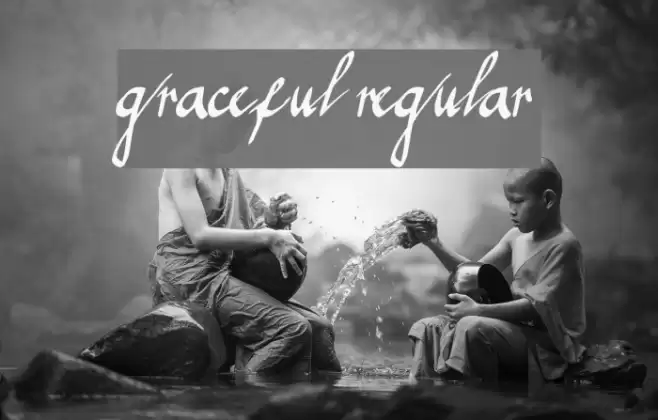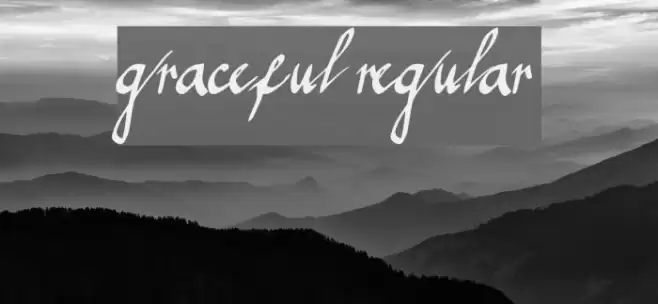
graceful regular Font
graceful regular Description
This font exudes elegance and sophistication with its flowing, cursive style. Each letter is intricately designed with delicate curves and flourishes, giving it a hand-drawn appearance. The uppercase letters are particularly ornate, featuring loops and swirls that add a touch of whimsy. The lowercase letters maintain a consistent style, with smooth connections between strokes, enhancing readability. Numbers and special characters are crafted with the same attention to detail, ensuring a cohesive look across all elements. This font is perfect for projects that require a personal, artistic touch.
An elegant, cursive font with intricate curves and flourishes from Uncategorized fonts.